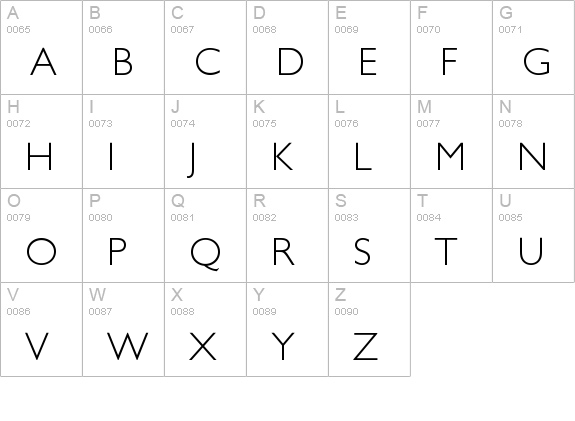
GentleSansLight font is a modern and elegant typeface that exudes sophistication and simplicity. Its clean lines and subtle curves make it perfect for a wide range of design projects, from branding to editorial design. The light weight of this font adds a delicate touch to any text, creating a harmonious and pleasing appearance. What makes GentleSansLight font even more appealing is that it is completely free to download. You can easily access this beautiful typeface at FontsMarket.com, where you can enhance your projects with its refined and timeless aesthetic. Whether you're working on a website, a poster, a logo, or any other design project, GentleSansLight font will surely elevate your creations to the next level. Download it now and add a touch of sophistication to your designs.